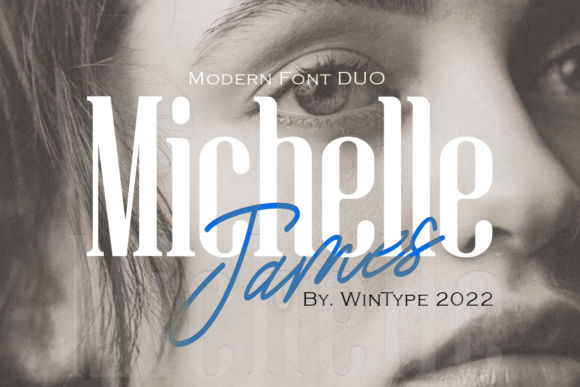
Unveil the Michelle James Font, a duo of meticulously crafted fonts designed to infuse your designs with a captivating charm and a touch of whimsy. This remarkable script font, brought to life by the talented WinType, features two enchanting fonts that dance in perfect harmony.
With Michelle James, you can effortlessly add a personal touch to your creative projects. Let your words and designs bloom with beauty and elegance as you immerse yourself in the world of photography.
Each font boasts a unique character, ready to elevate your projects to new heights. Whether you're a seasoned designer or just starting your creative journey, Michelle James will ignite your imagination and captivate your audience.
From captivating logos and branding elements to eye-catching social media posts and website designs, Michelle James adapts seamlessly to your every need. Its versatility knows no bounds, allowing you to weave your creative magic across a multitude of platforms.
With Michelle James, your designs will radiate a sense of individuality, leaving a lasting impression on all who lay their eyes upon them. Experience the joy of creating with a font that speaks to your soul and ignites your passion.
Embrace Michelle James and embark on an artistic adventure where your creativity knows no limits. Let your imagination soar, let your designs shine, and let the Michelle James Font guide you towards greatness.